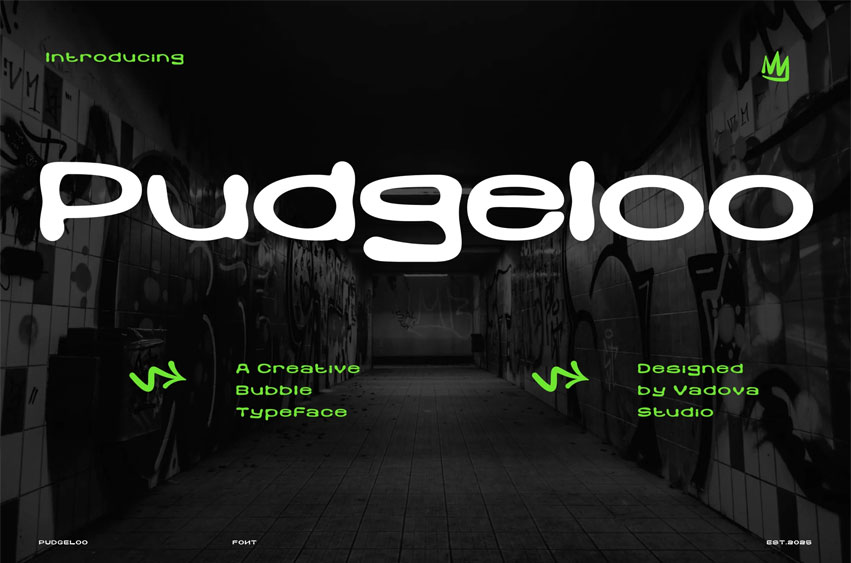
Pudgeloo Font is a modern and experimental display font defined by its soft bubble-like curves and futuristic minimalism. With a playful yet structured aesthetic, it’s perfect for branding, tech-driven campaigns, creative posters, and innovative product packaging. Its rounded letterforms evoke a sense of motion, fluidity, and contemporary design sensibility, making Pudgeloo a standout typeface for projects looking to break conventions and push visual boundaries.